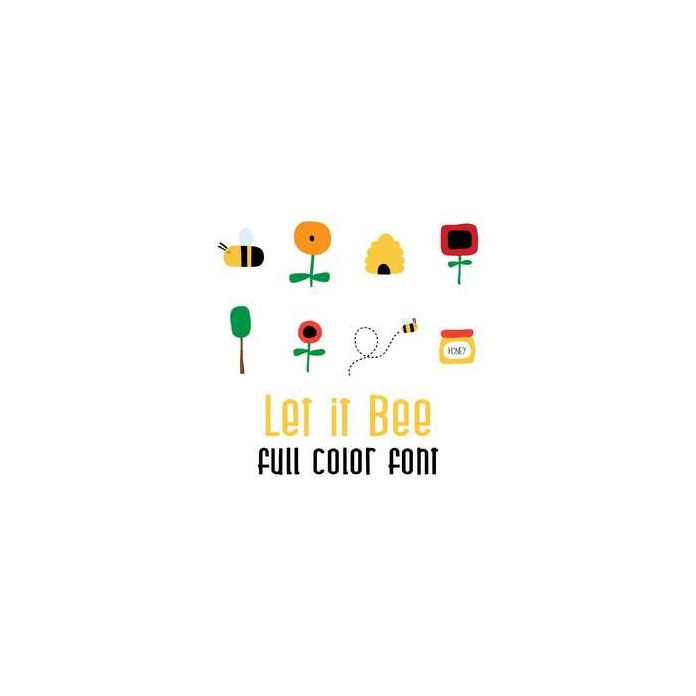
This adorable full color doodlebat font features adorable bees and florals. Perfect for cards, crafts, gifts, decor, scrap book pages, planner stickers and more!